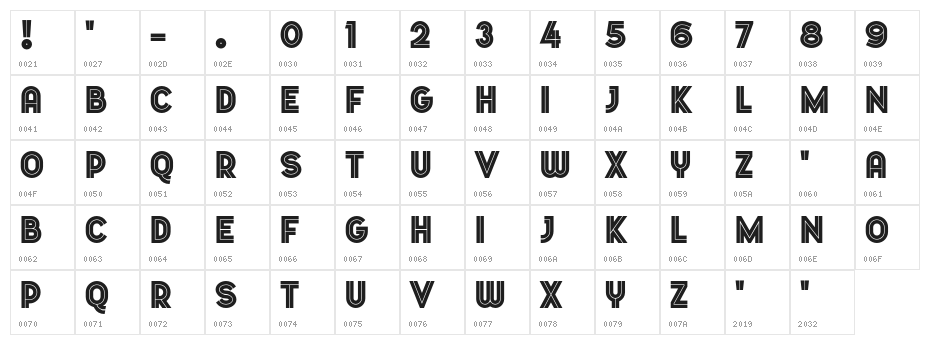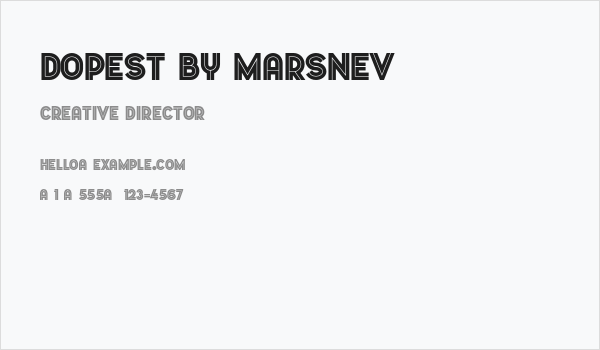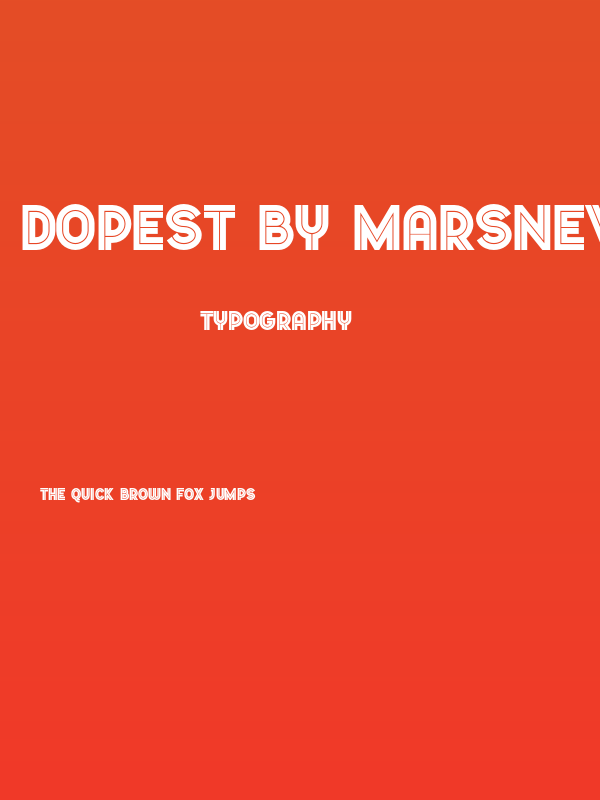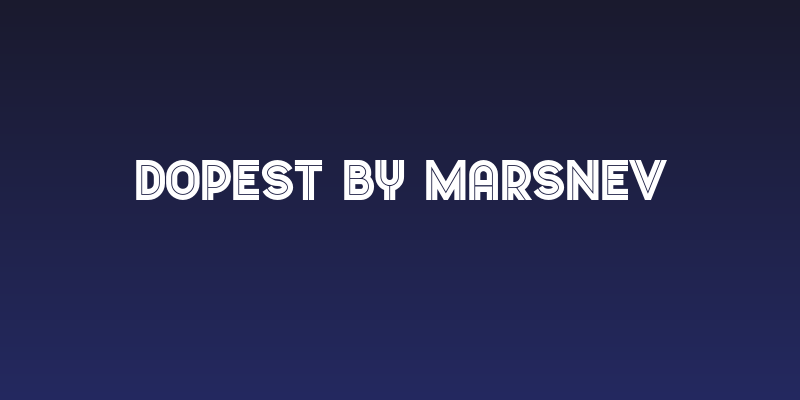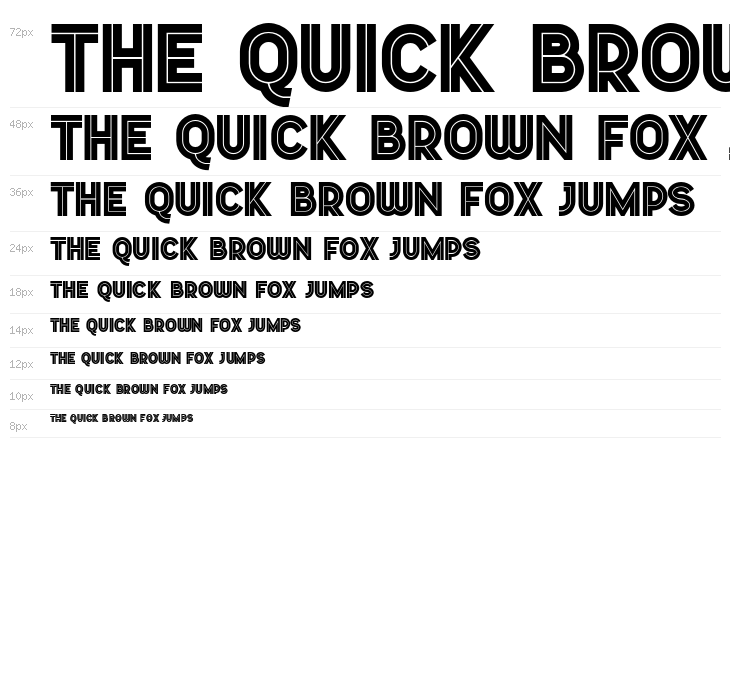
Dopest by MARSNEV Font
Dopest by MARSNEV Description
This font features a bold and striking design with a modern, geometric style. The characters are constructed with thick, uniform strokes that create a strong visual impact. The uppercase letters are particularly prominent, with a blocky appearance that emphasizes their solid structure. The numerals and special characters maintain this boldness, ensuring consistency across all glyphs. The font's design is clean and straightforward, making it suitable for attention-grabbing headlines or titles. Its geometric nature gives it a contemporary feel, while the boldness adds a sense of authority and presence.
| Proposed Projects | Ideal for branding, posters, headlines, and any project requiring a strong visual impact. |